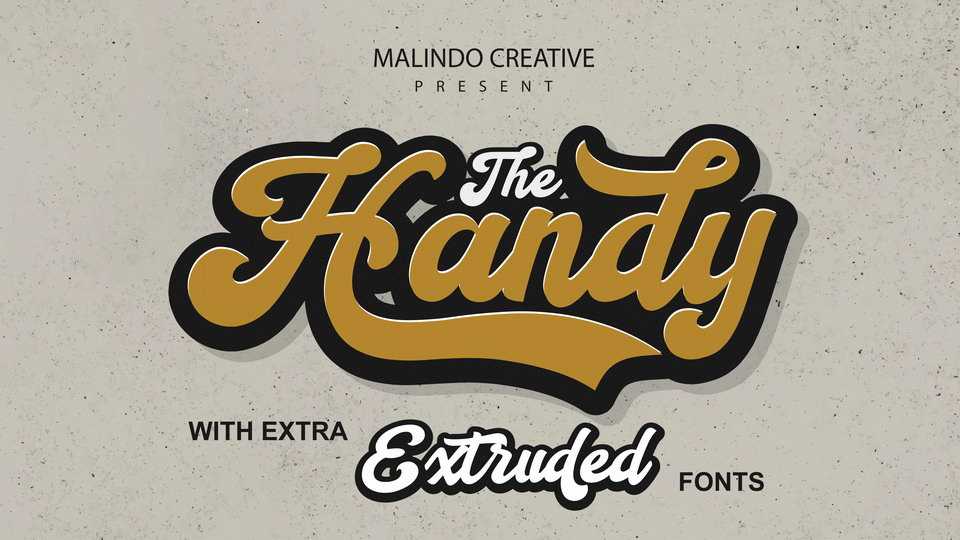
Download Handy Script font, an attractive retro style hand lettered typeface inspired from the famous retro typography designs. It will easily add a vintage feel to your designs, logos, labels, t-shirts and other creative projects.
Designer: Malindo Creative